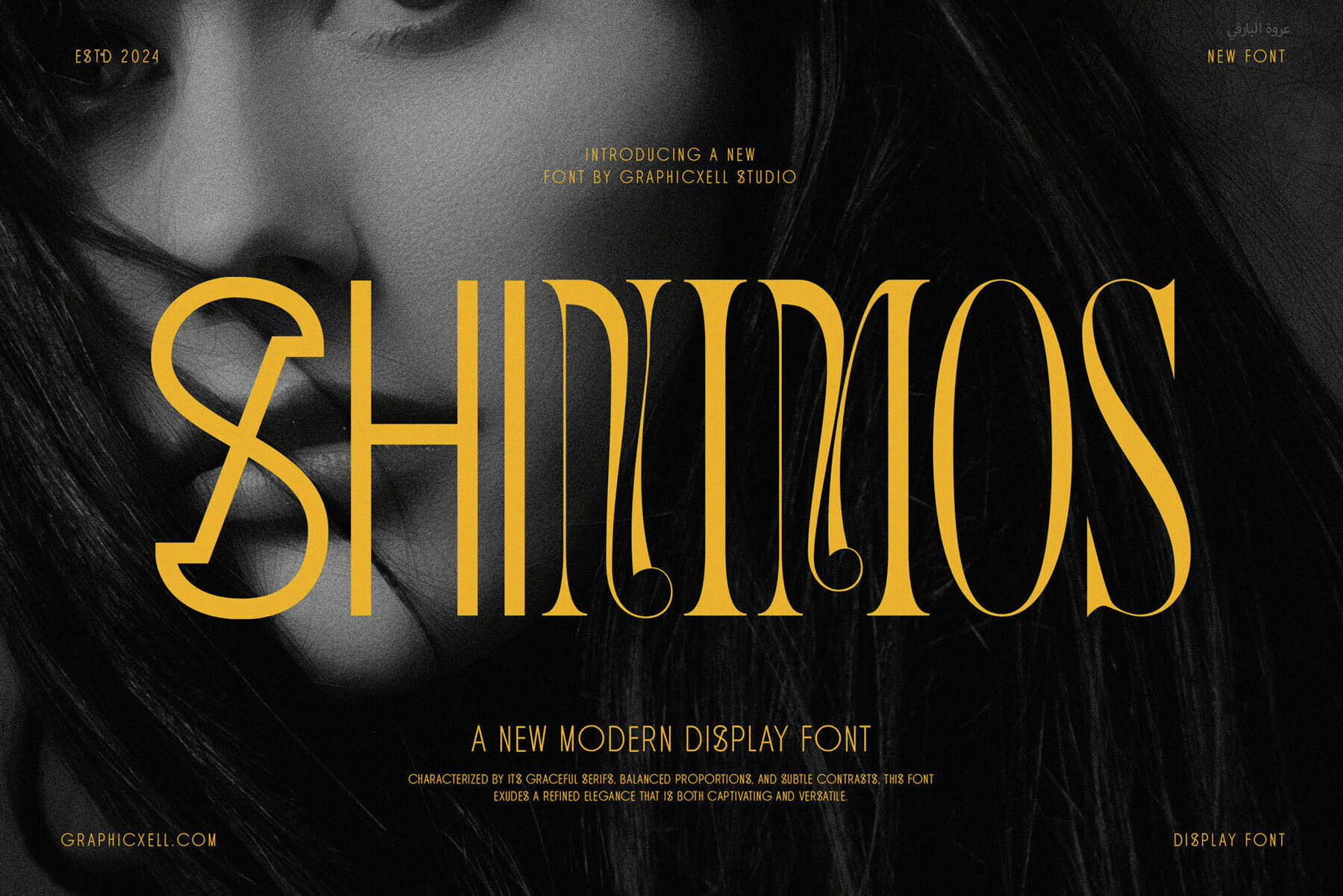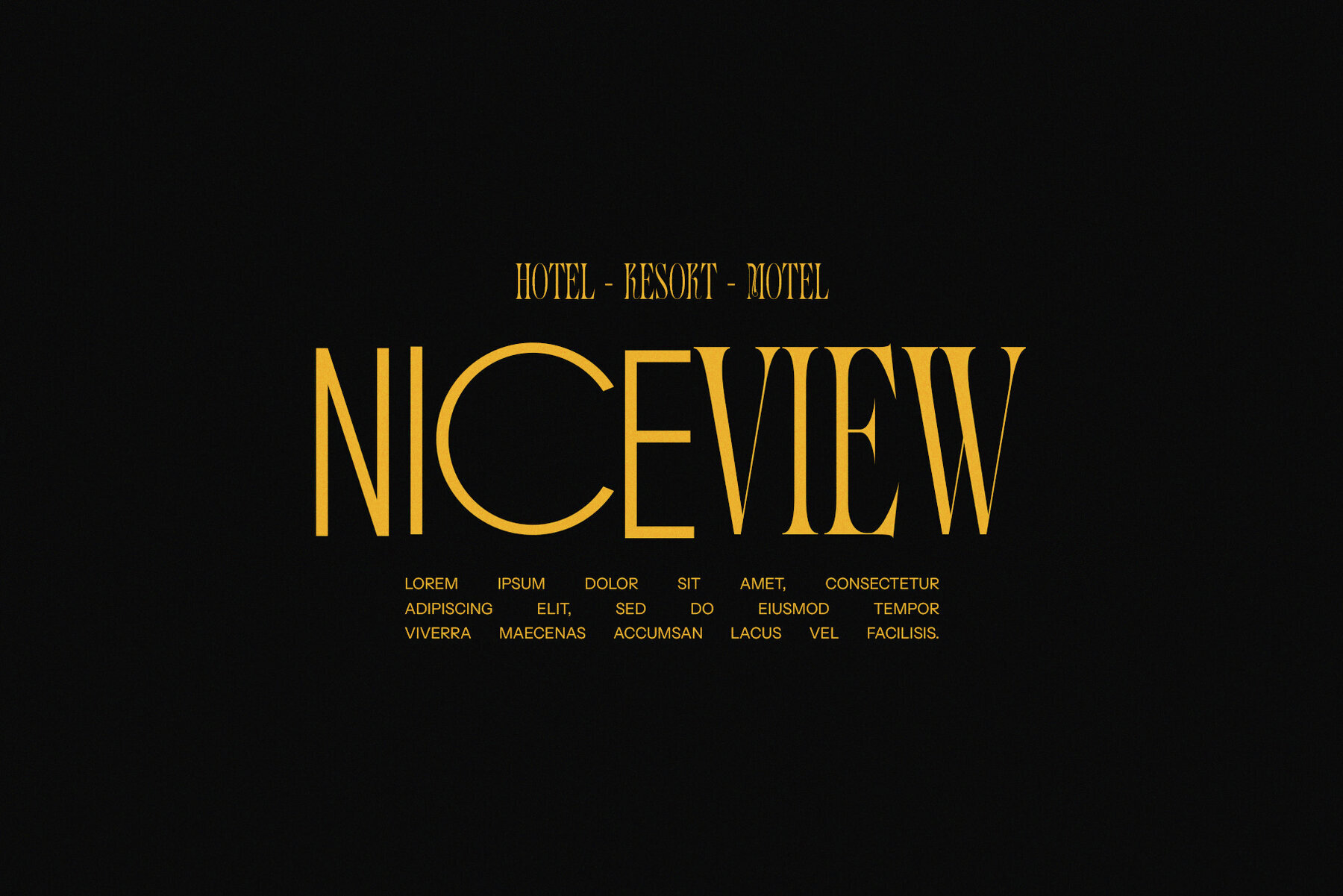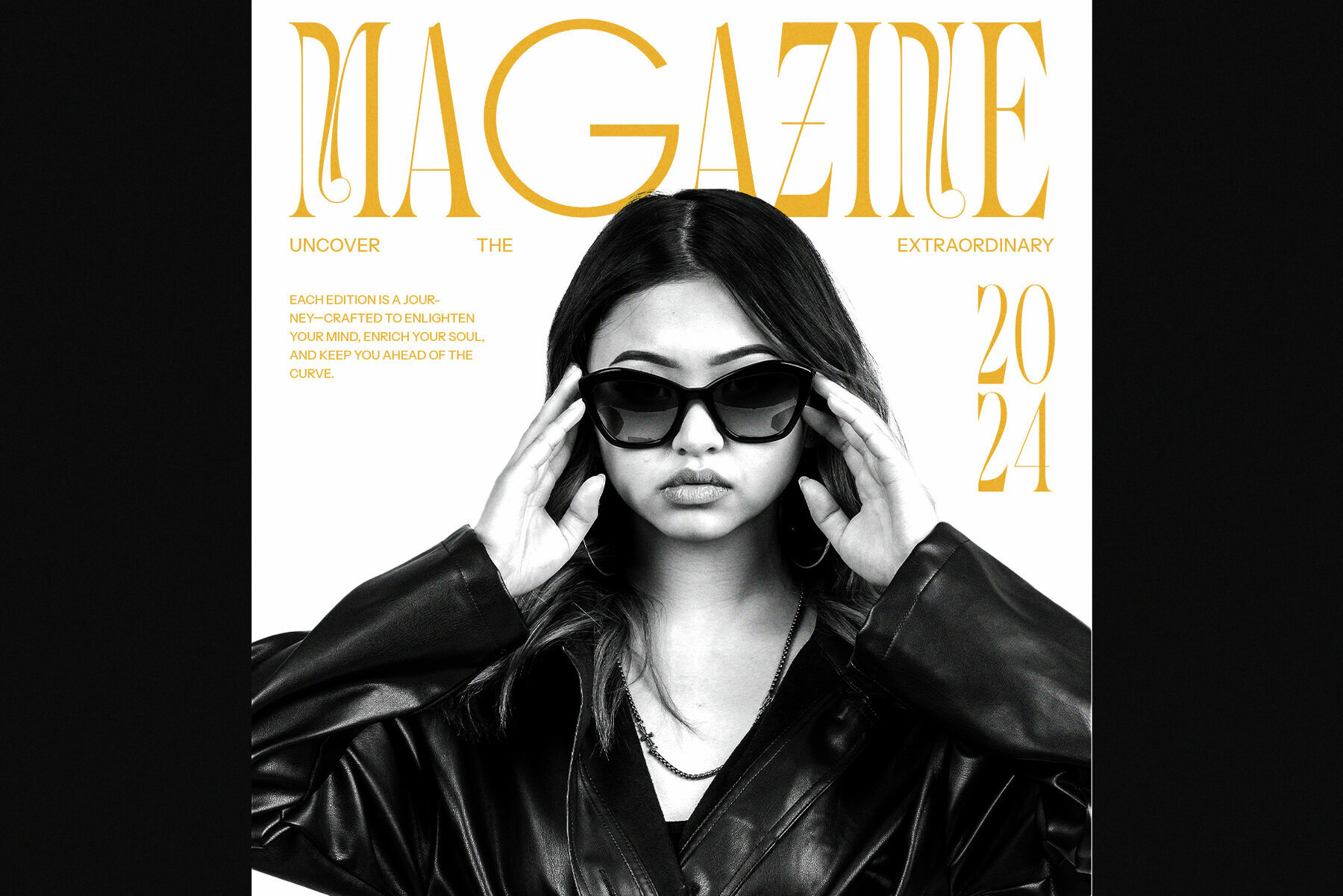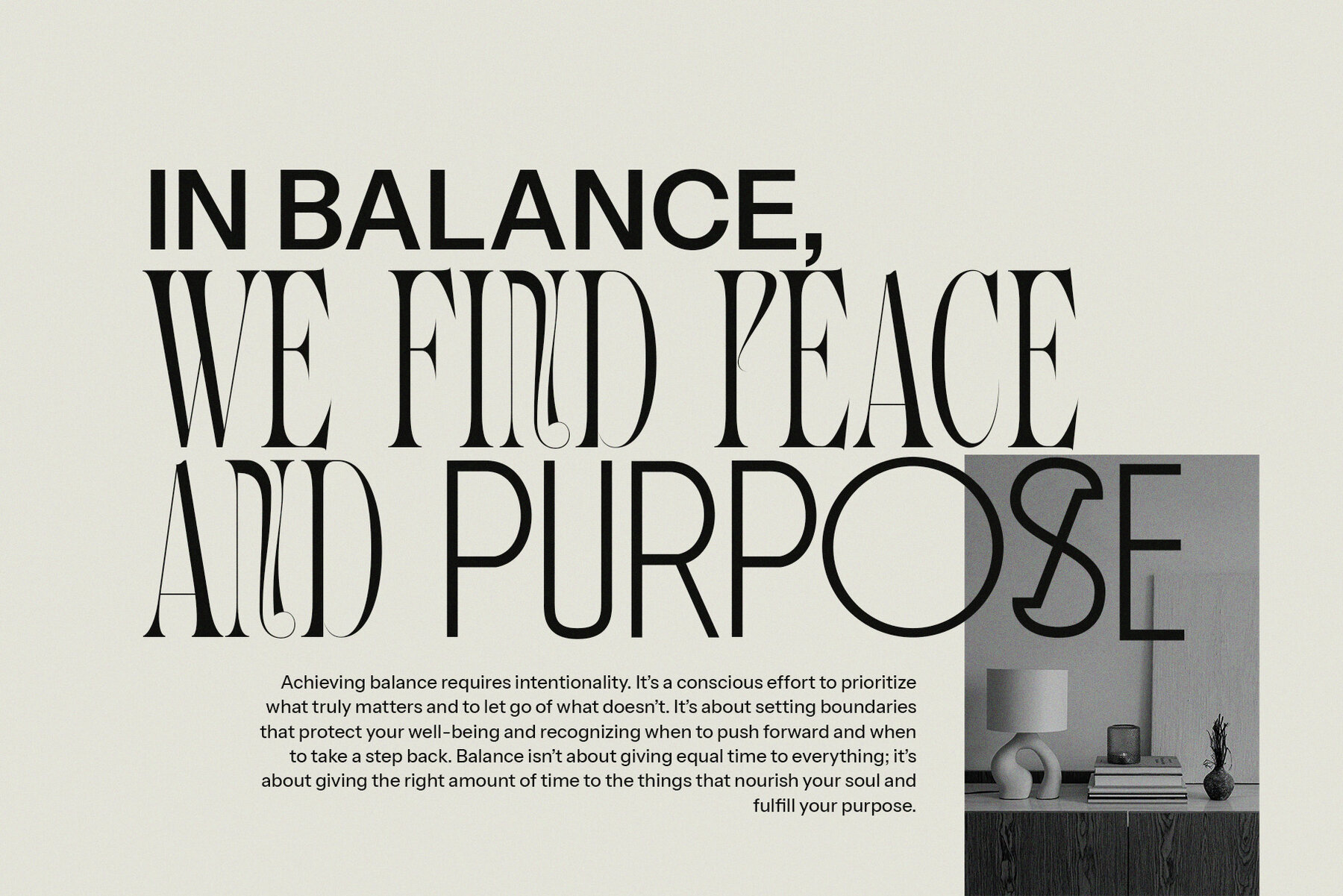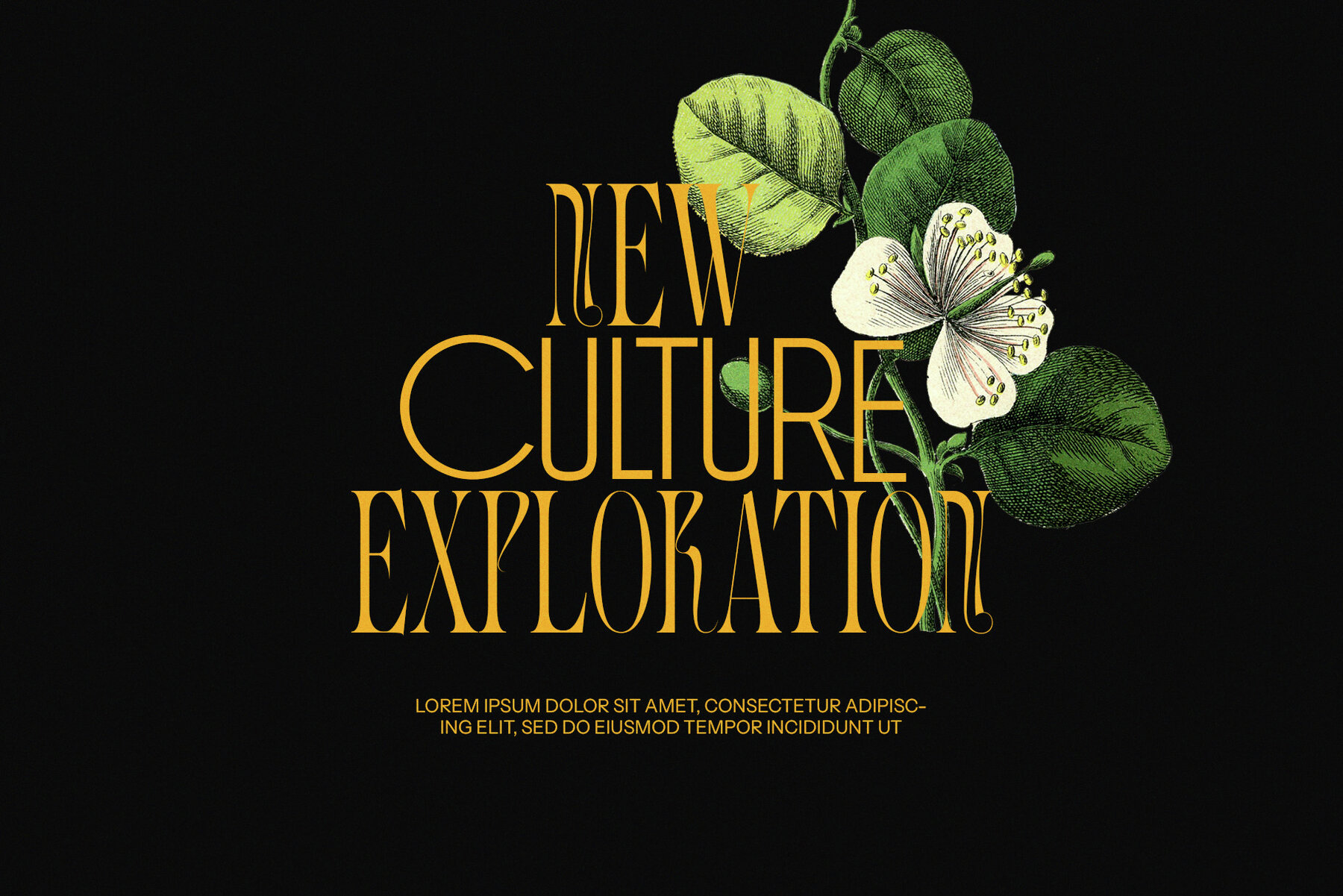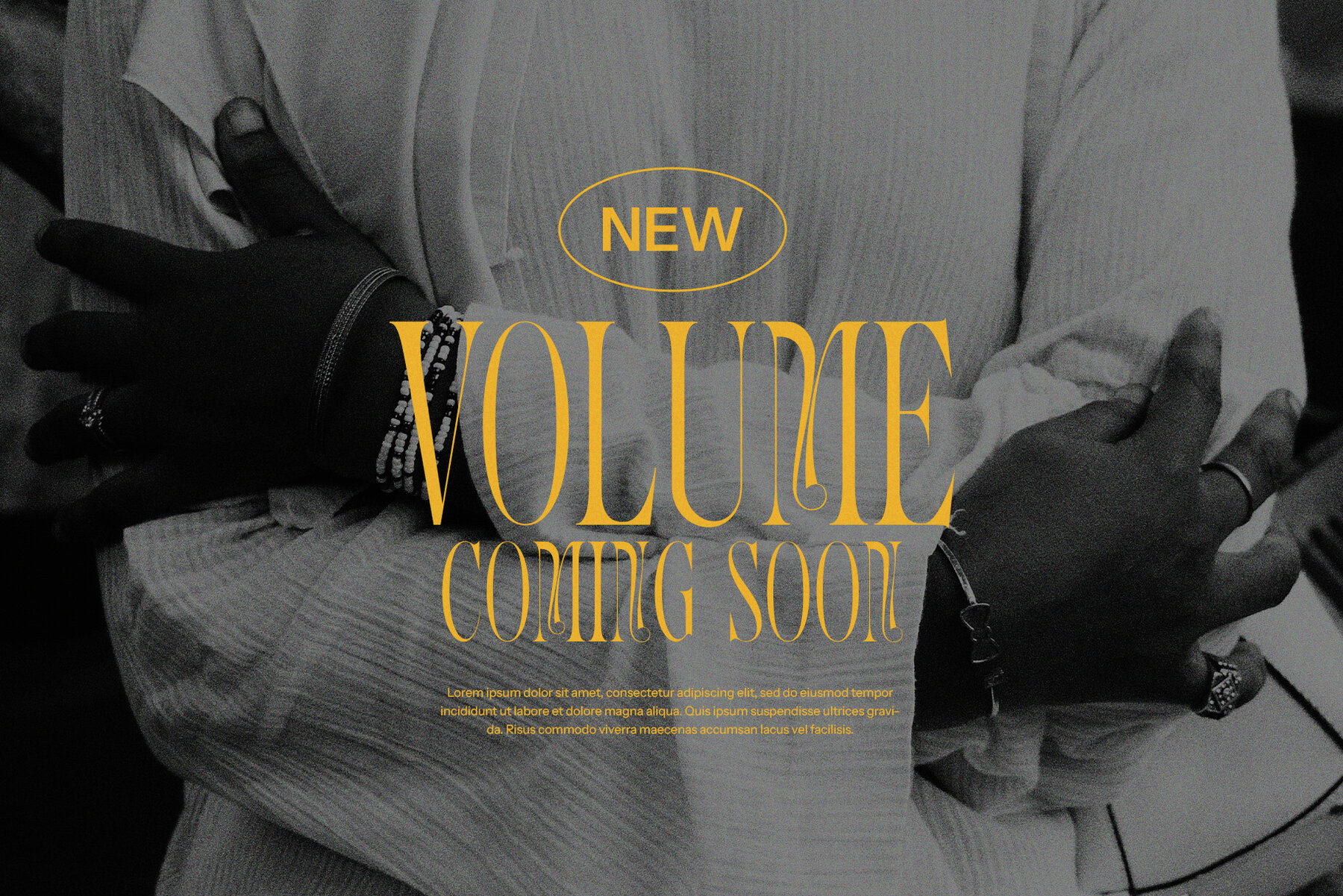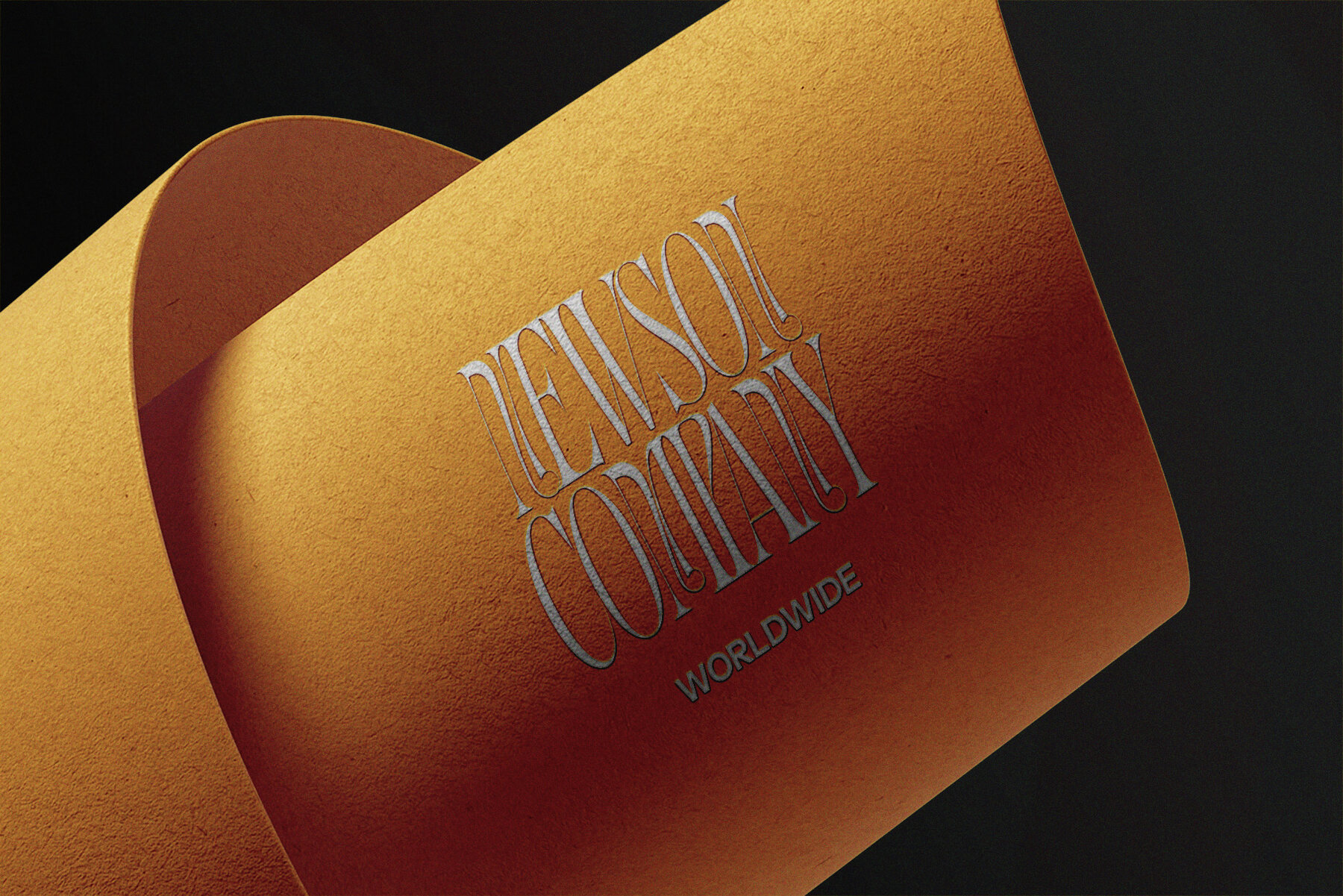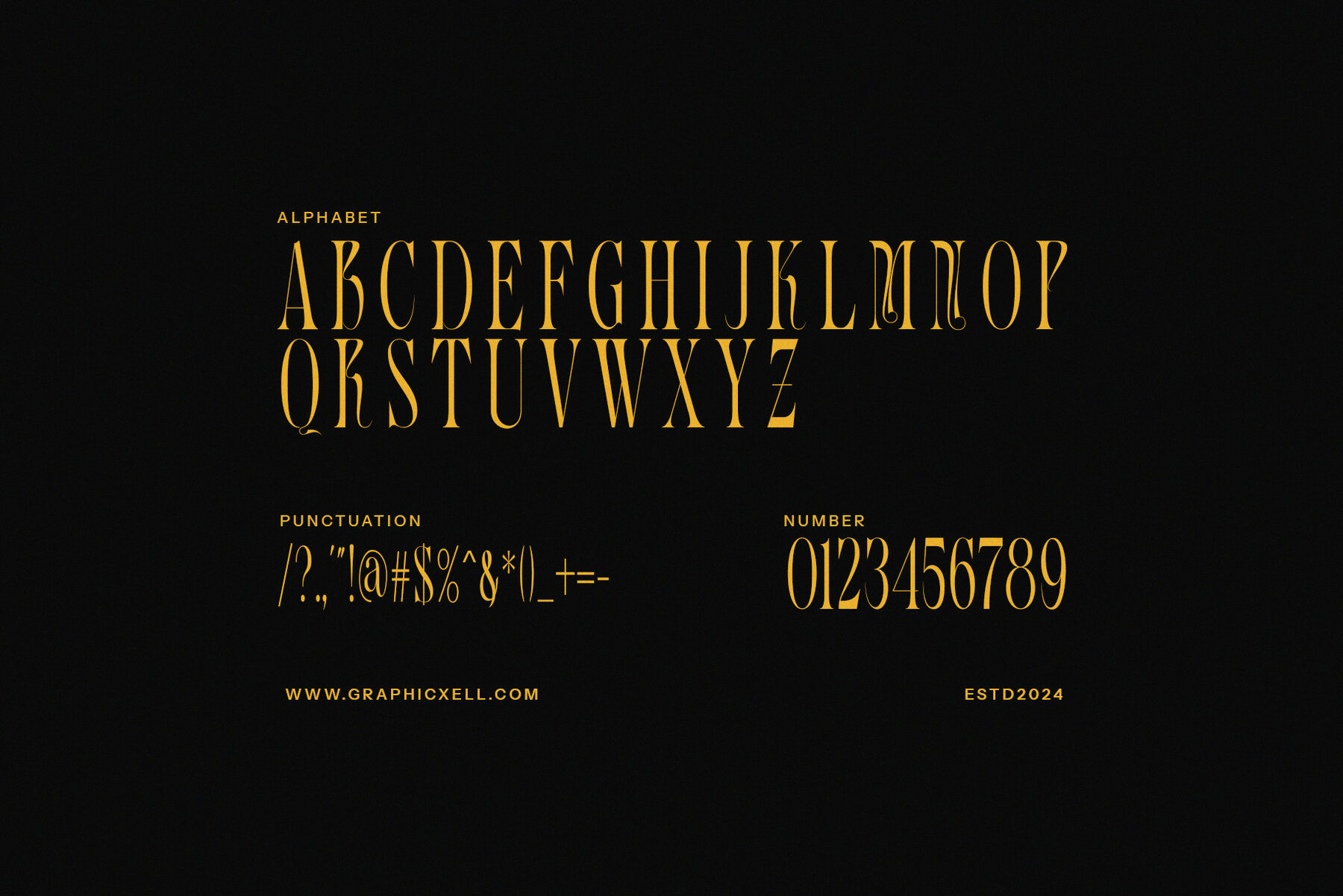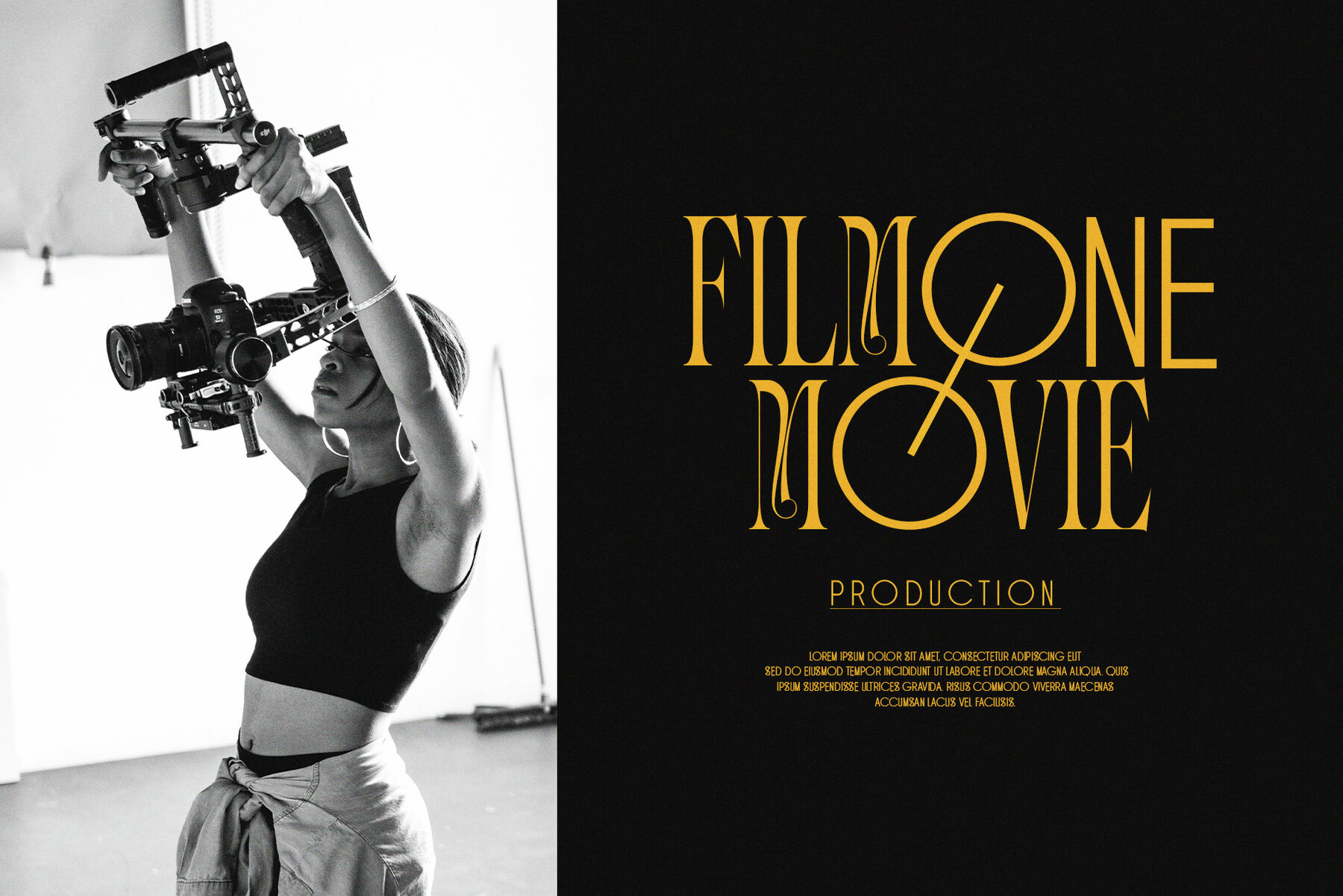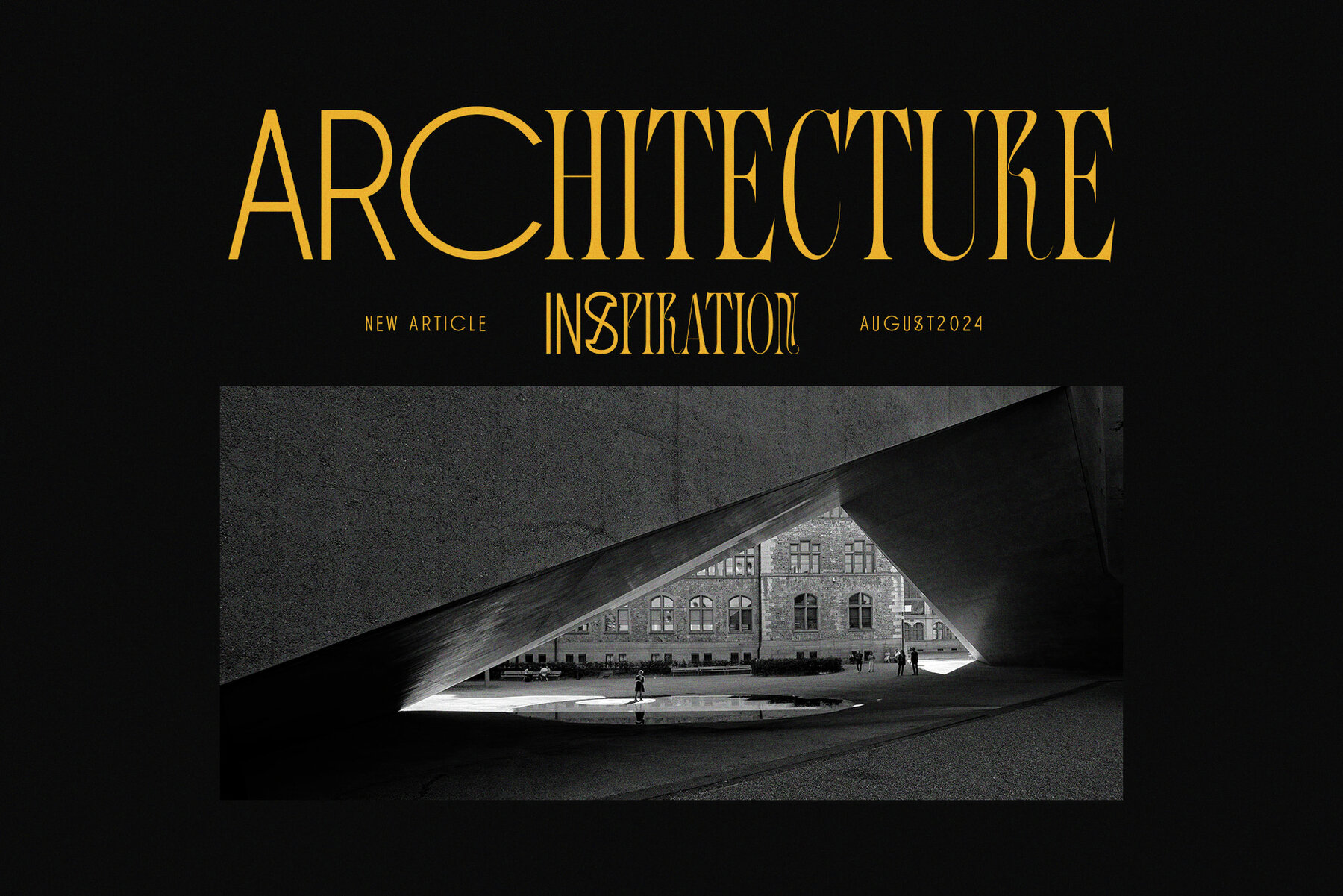
Shinimos Font
Shinimos Elegant Duo Font merges the classic allure of elegant serifs with the sleekness of modern sans serifs, offering a harmonious fusion that suits diverse design needs. The serif type features refined, delicate strokes that impart a sense of traditional sophistication—perfect for projects demanding a timeless touch. Each character is carefully crafted with flowing curves and angles, ensuring an inviting visual allure. In contrast, the sans serif version introduces a modern sensibility with clean lines and a minimalist aesthetic, providing a contemporary balance. The interplay between these styles offers a versatile toolkit, empowering designers to create visually cohesive yet distinctive outcomes.
Ideal for a variety of applications, Shinimos is especially effective in logo design, where it adeptly communicates both professionalism and creativity through the interplay of serif and sans serif elements. This duality helps brands maintain a polished yet unique identity. In magazine layouts, it enhances editorial appeal—serifs draw readers into headlines, while sans serifs ensure body text readability. For product packaging, Shinimos lends an air of sophistication, enhancing consumer perception of quality and detail, making it well-suited for luxury items and refined brand presentations. The distinctive blend of elegance and modernity makes Shinimos an impactful choice for crafting resonant visual narratives.